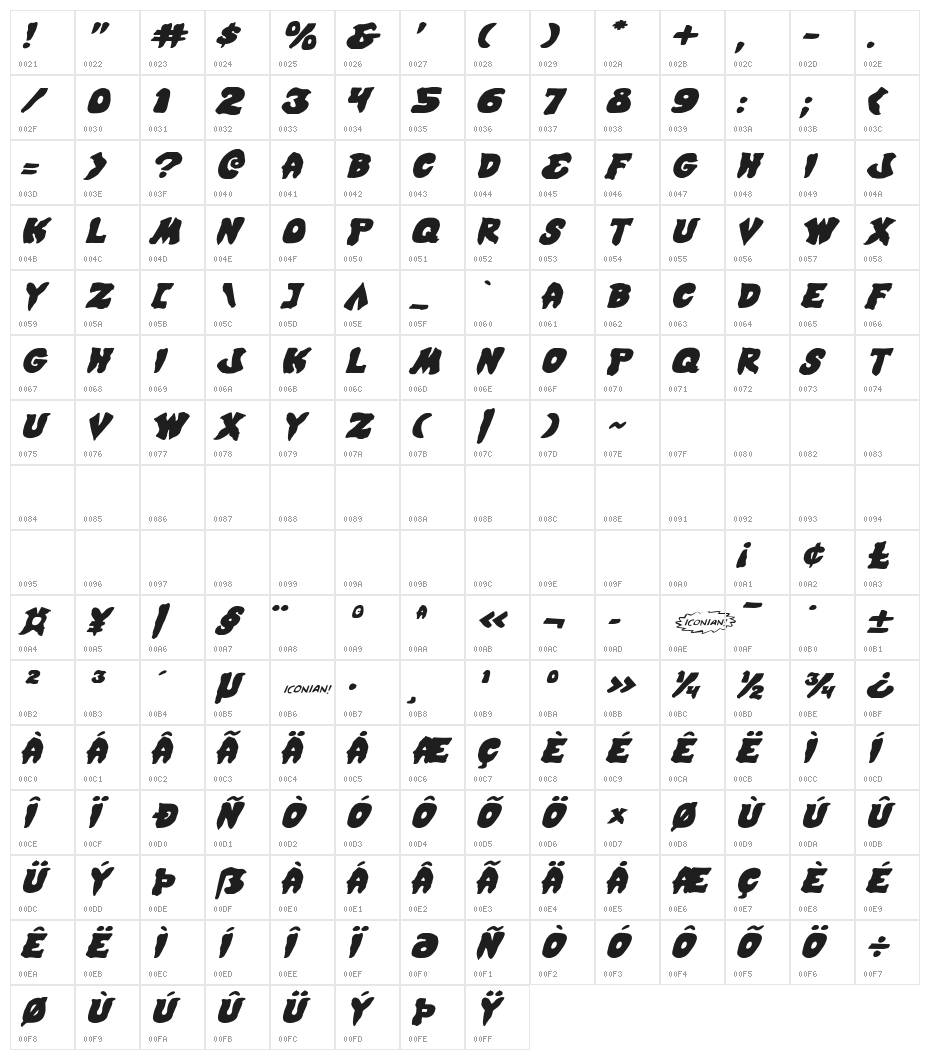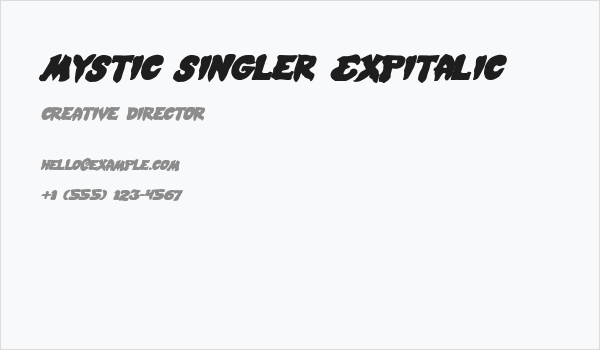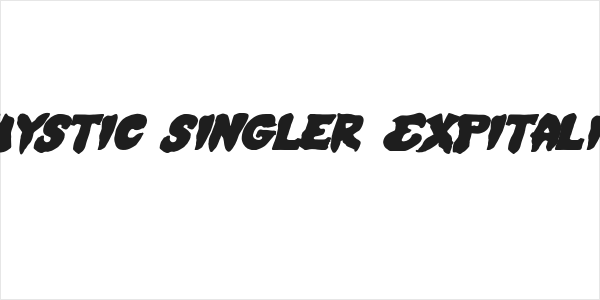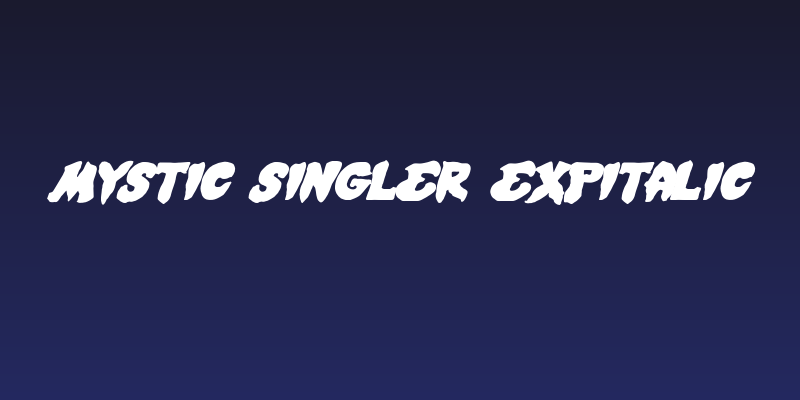
Mystic Singler ExpItalic Font
Mystic Singler ExpItalic Description
This font features a bold, expressive style with a strong emphasis on thick, dynamic strokes. The characters are heavily italicized, giving a sense of movement and energy. The uppercase and lowercase letters maintain a consistent weight, creating a cohesive look. The numbers and special characters follow the same bold and slanted design, ensuring uniformity across all glyphs. The overall appearance is striking and attention-grabbing, making it ideal for projects that require a strong visual impact.